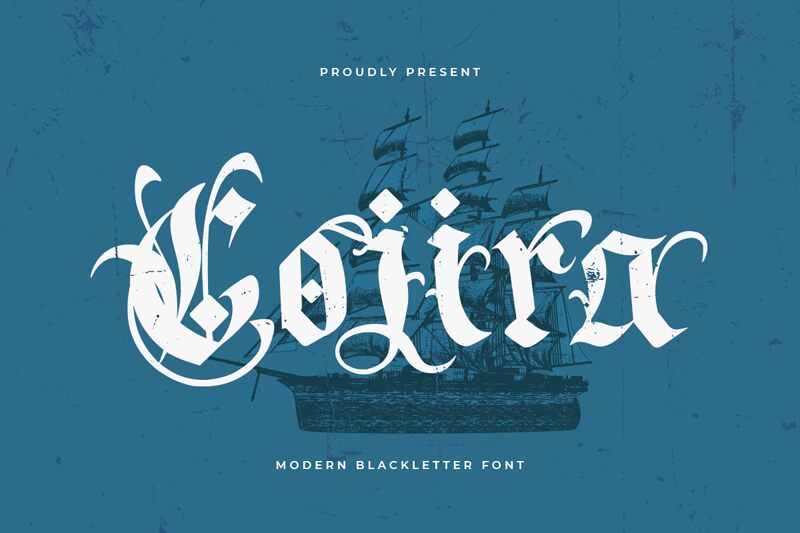
Cojira
Cojira font by Kong Font is inspired by a medieval script used in old texts. This free gothic font is designed to serve your purposes of creating attractive calligraphic display texts. Yet, its decorative flourishes and ornate presentation allows it to portray classy glamorous illustrations on its own. Cojira weighs the elements of stature and agility by following traditional patterns for text styling, including monochrome inning & outlining.